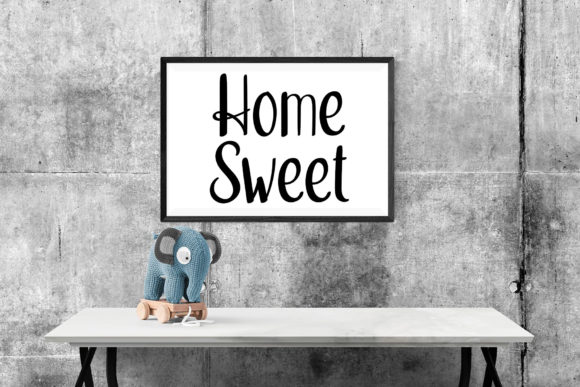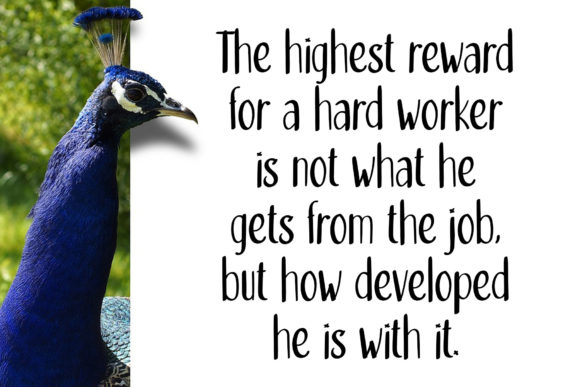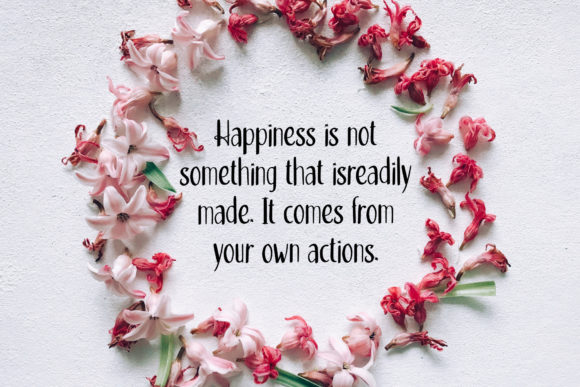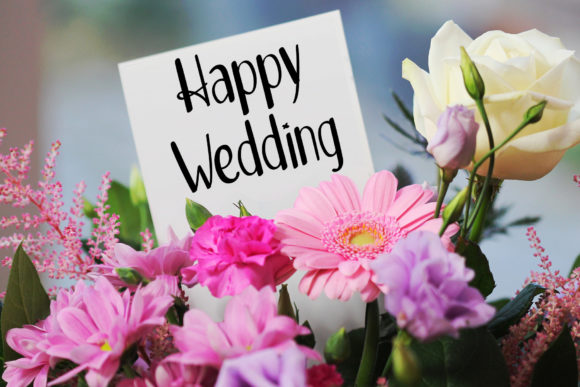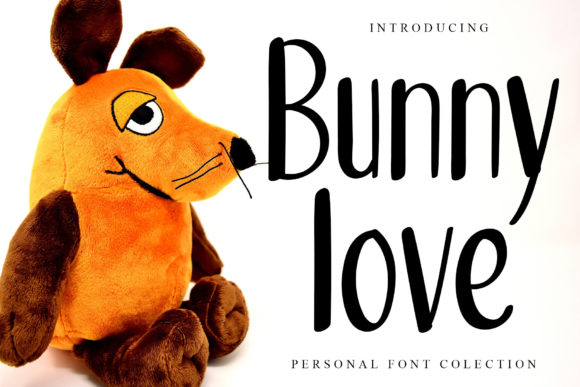
Bunny Love Font: The Ultimate Choice for Sweet and Playful Designs
Are you a designer or crafter looking for a font that can add a touch of sweetness and playfulness to your designs? Look no further than the Bunny Love Font! This adorable, minimalist handwritten font is perfect for brightening up your projects and making them stand out. In this article, we’ll dive into the world of Bunny Love Font and explore its features, benefits, and uses.
What is Bunny Love Font?
Bunny Love Font is a cute and minimalist handwritten font that exudes a sweet and full-of-life style. Its simple yet charming design makes it an excellent choice for a wide range of design projects, from digital crafts to branding and marketing materials. The font’s playful and carefree vibe is sure to capture the hearts of your audience and leave a lasting impression.
Key Features of Bunny Love Font
- Cute and Minimalist Design: Bunny Love Font boasts a simple yet adorable design that is sure to delight your audience.
- Handwritten Style: The font’s handwritten style gives it a personal and human touch, making it perfect for designs that require a personal and friendly feel.
- Sweet and Full-of-Life Style: The font’s sweet and lively style makes it an excellent choice for designs that require a playful and energetic vibe.
- Multilingual Support: Bunny Love Font supports multiple languages, making it a great choice for designers who work with international clients or create content for a global audience.
Benefits of Using Bunny Love Font
So, why should you choose Bunny Love Font for your design projects? Here are just a few benefits of using this adorable font:
- Adds a Touch of Whimsy: Bunny Love Font adds a touch of whimsy and playfulness to your designs, making them more engaging and fun to look at.
- Perfect for Kids and Adults Alike: The font’s cute and minimalist design makes it perfect for designs targeting both kids and adults.
- Easy to Read: Despite its playful design, Bunny Love Font is easy to read, making it an excellent choice for body text and headings.
- Versatile: The font’s versatility makes it suitable for a wide range of design projects, from digital crafts to branding and marketing materials.
Uses of Bunny Love Font
Bunny Love Font is a versatile font that can be used in a variety of design projects, including:
- Digital Crafts: Use Bunny Love Font to create adorable digital crafts, such as printable art, planners, and journals.
- Branding and Marketing: The font’s playful and energetic vibe makes it perfect for branding and marketing materials, such as logos, brochures, and social media graphics.
- Wedding and Party Decor: Add a touch of sweetness to your wedding and party decor with Bunny Love Font, perfect for invitations, signs, and banners.
- Kids’ Designs: The font’s cute and playful design makes it perfect for kids’ designs, such as children’s books, educational materials, and kids’ party decorations.
Tips for Using Bunny Love Font
Here are a few tips for using Bunny Love Font in your design projects:
- Pair with Other Fonts: Experiment with pairing Bunny Love Font with other fonts to create a unique and visually appealing design.
- Use in Headings and Titles: Use Bunny Love Font in headings and titles to add a touch of whimsy and playfulness to your designs.
- Experiment with Colors: The font’s playful design makes it perfect for experimenting with bright and bold colors.
In conclusion, Bunny Love Font is a cute and minimalist handwritten font that is perfect for designers and crafters looking to add a touch of sweetness and playfulness to their designs. Its simple yet charming design, sweet and full-of-life style, and versatility make it an excellent choice for a wide range of design projects. Whether you’re creating digital crafts, branding and marketing materials, or kids’ designs, Bunny Love Font is sure to delight your audience and leave a lasting impression.